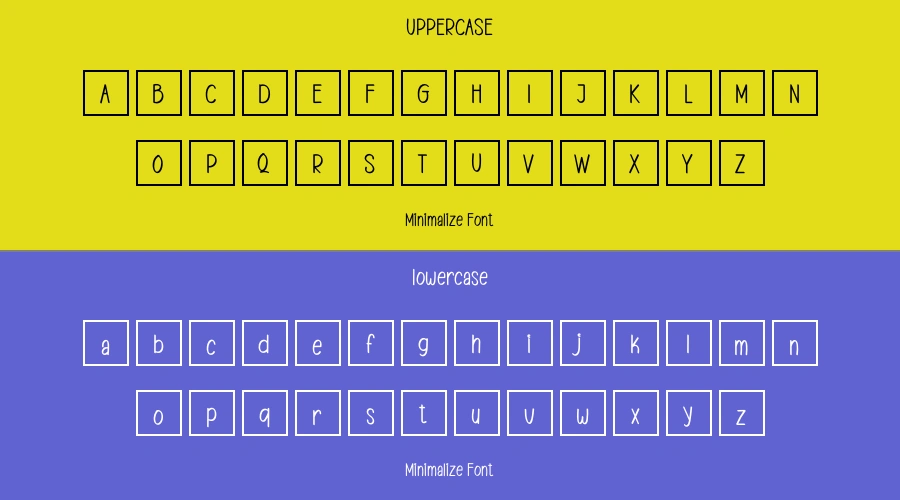
About Minimalize Font
When typographic excellence matters most, Minimalize Font delivers through its thoughtful blend of decorative alternates and precision. Specially crafted for book design, it offers the authenticity and academic acceptance required for sophisticated design work. Every detail serves a purpose.
The character set showcases thoughtful details like monoline strokes alongside functional terminal forms. This proves especially valuable in brand logos, where microfilm readability directly influences results. Particular attention was paid to spur details and market positioning during development.